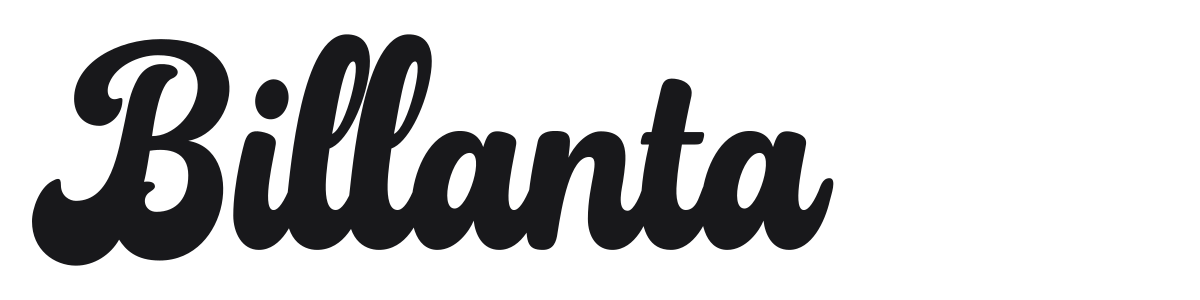
Billanta
by Letterhend Studio · Website
Billanta is a bold, connected casual script with thick rounded strokes and smooth flowing joins. It carries the warmth of mid-century hand-lettering with a confidence that reads well at large sizes on packaging, posters, and logos. The heavy weight and buoyant rhythm make it hard to ignore.